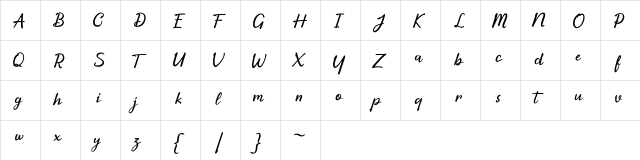
Thakiro Regular
| Foundry | Vilogsign |
| Designer | Vilogsign |
Design Context for Thakiro Typeface
Thakiro is a composed and adaptable typeface that performs quietly and consistently across a wide range of design contexts.